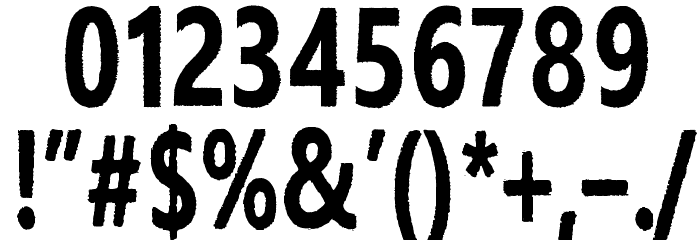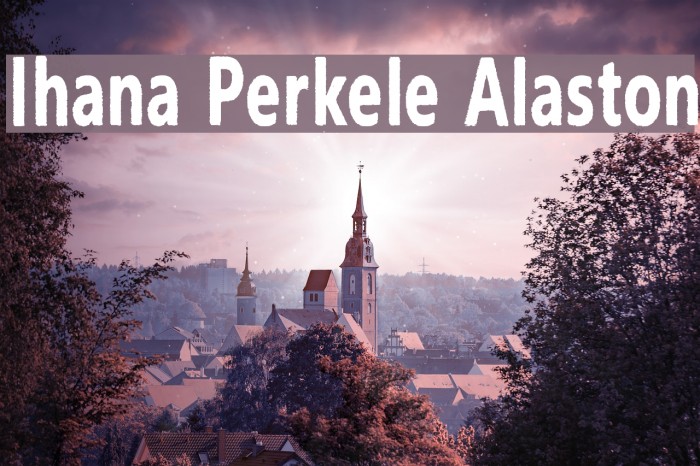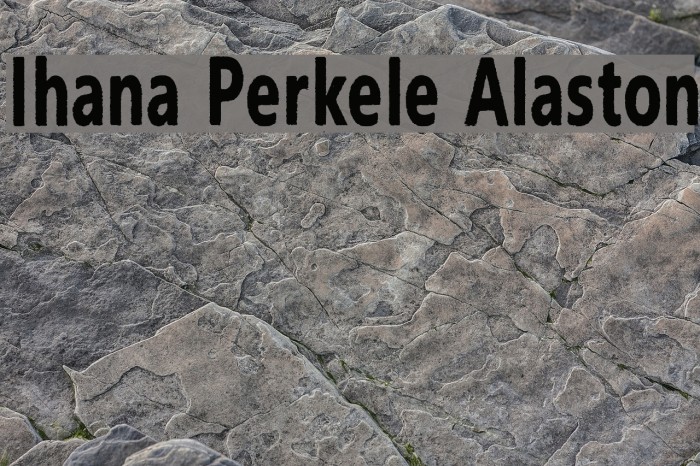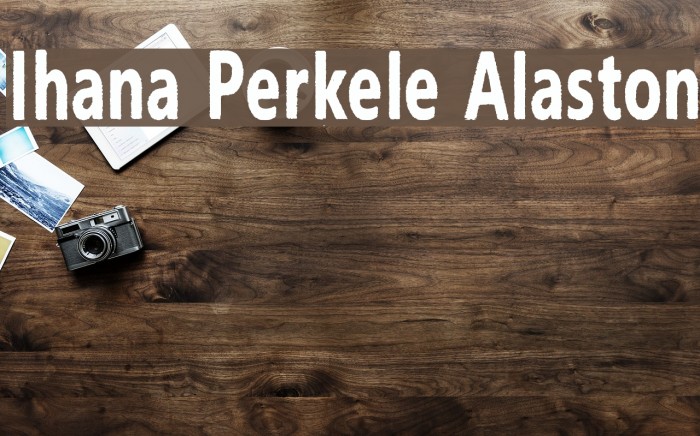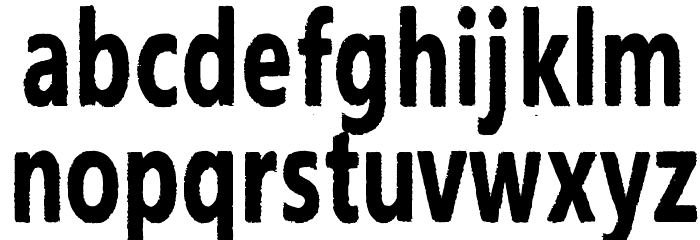
Ihana Perkele Alaston Font
This font features a bold, robust style with a slightly distressed texture, giving it a vintage and handcrafted feel. The uppercase letters are strong and commanding, while the lowercase letters maintain a consistent weight and style, ensuring readability. The numerals are clear and well-proportioned, matching the overall aesthetic of the alphabet. Special characters are included, maintaining the same bold and slightly rough texture, which adds to the font's unique character. The font's design is versatile, suitable for various creative projects that require a touch of boldness and individuality.
A bold, vintage-style font with a slightly distressed texture.
• Proposed Projects: Ideal for posters, branding, packaging, and any design requiring a bold, vintage touch.